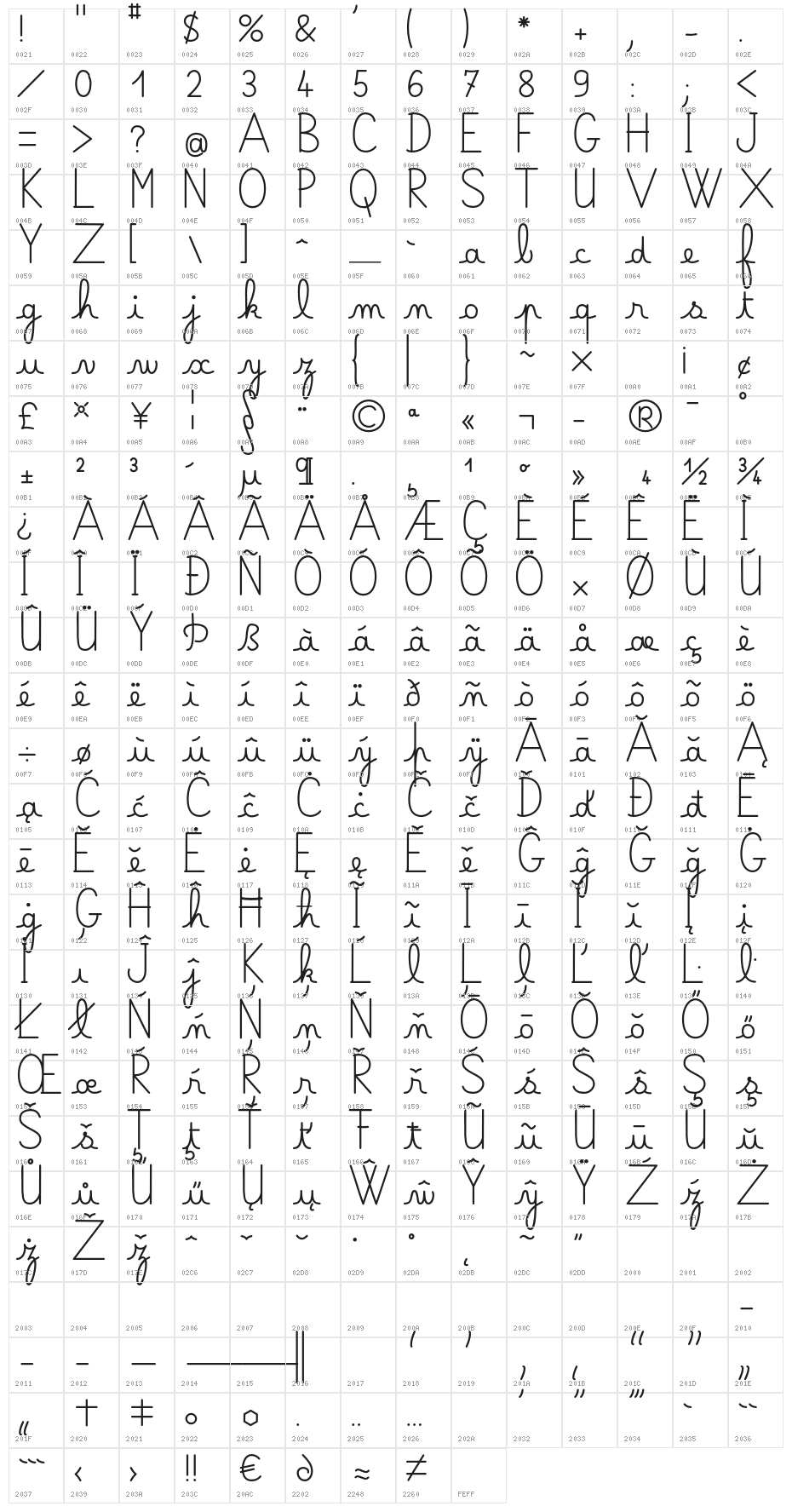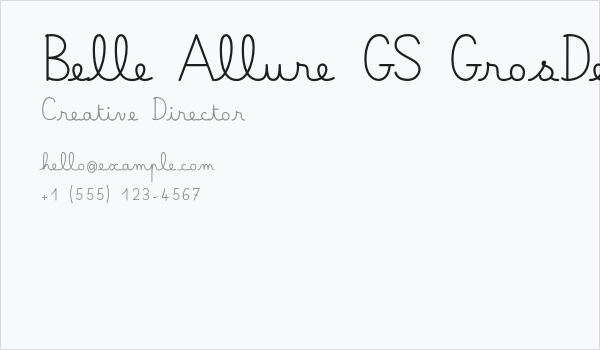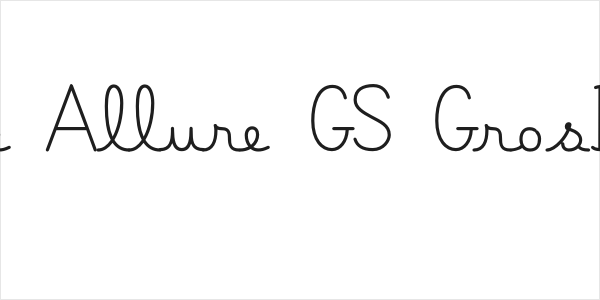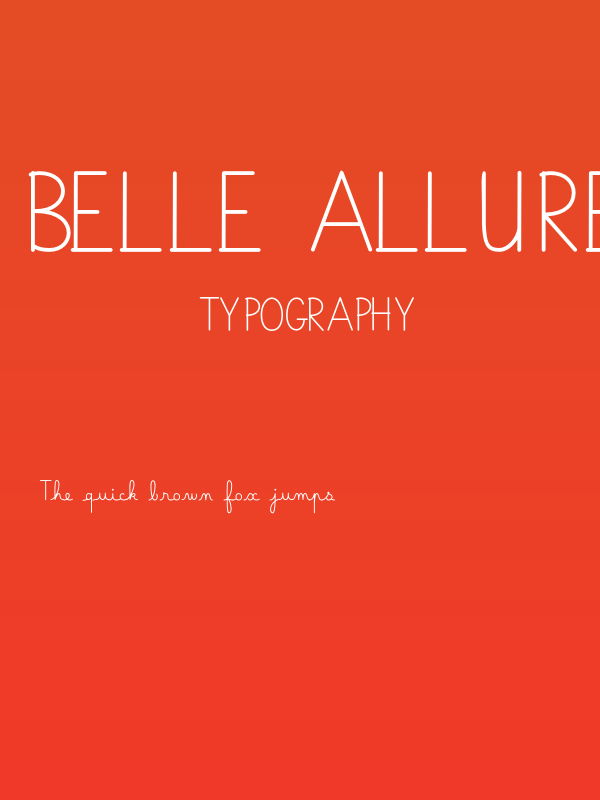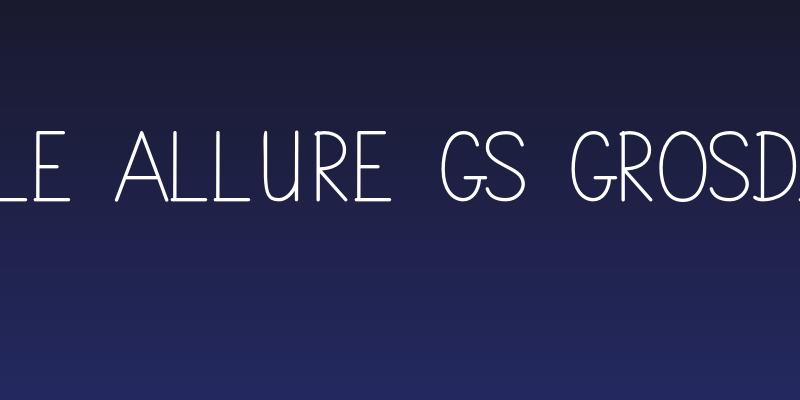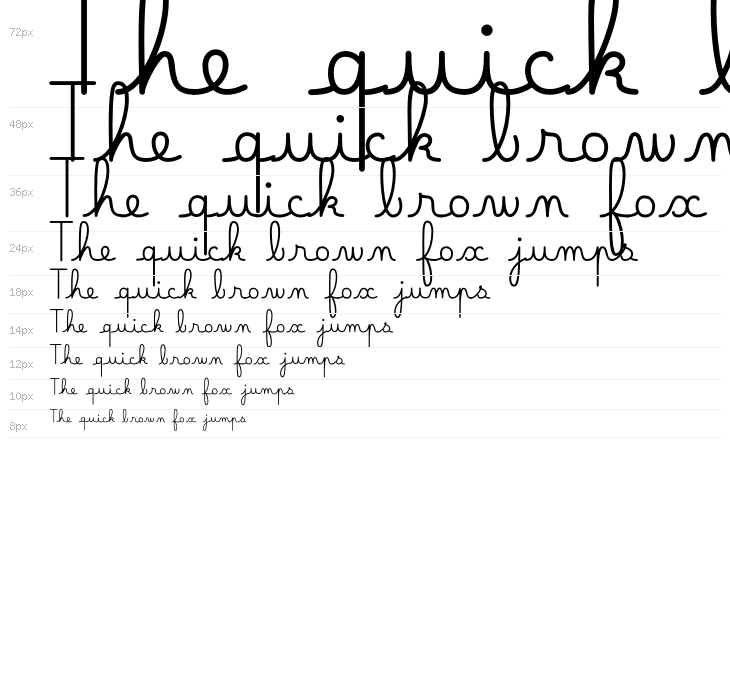
Belle Allure GS GrosDemo Font
Belle Allure GS GrosDemo Description
This font features a playful and elegant design, combining both uppercase and lowercase letters with a handwritten style. The uppercase letters are tall and slender, with a slight whimsical touch that adds character. The lowercase letters are more fluid and connected, resembling cursive handwriting. The numerals are clear and consistent, maintaining the playful aesthetic. Special characters are included, each designed to match the overall style. The font's thin strokes and rounded edges give it a friendly and approachable feel, making it suitable for a variety of creative projects.
| Overall Style | Playful, Elegant |
| Use Case | Headlines, Invitations, Personal Branding |
| Proposed Projects | Ideal for greeting cards, invitations, personal branding, and creative projects that require a friendly and approachable typeface. |